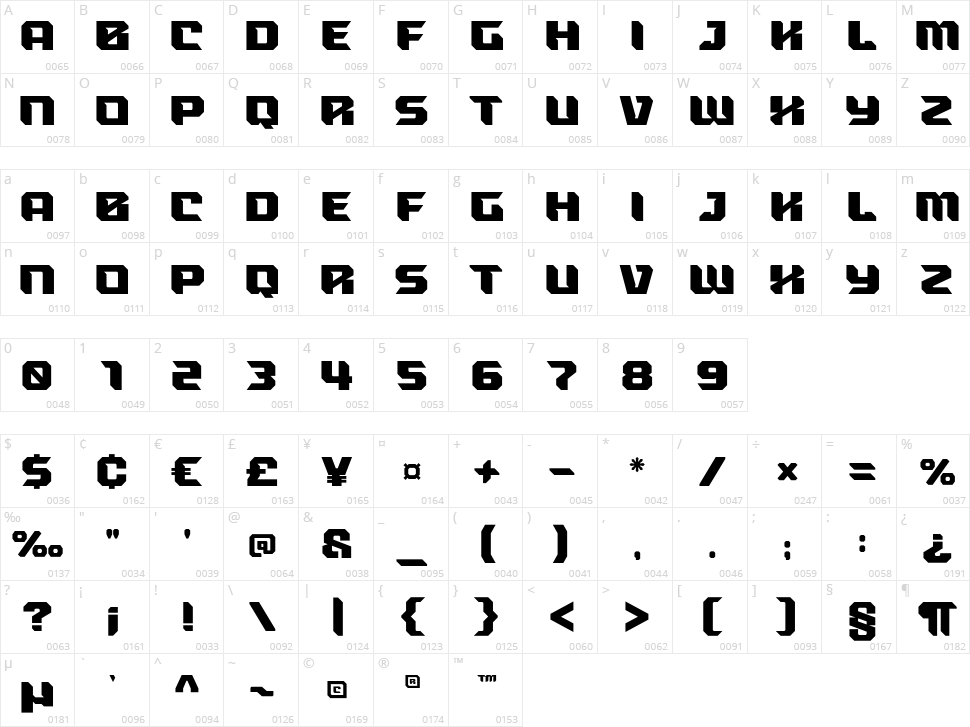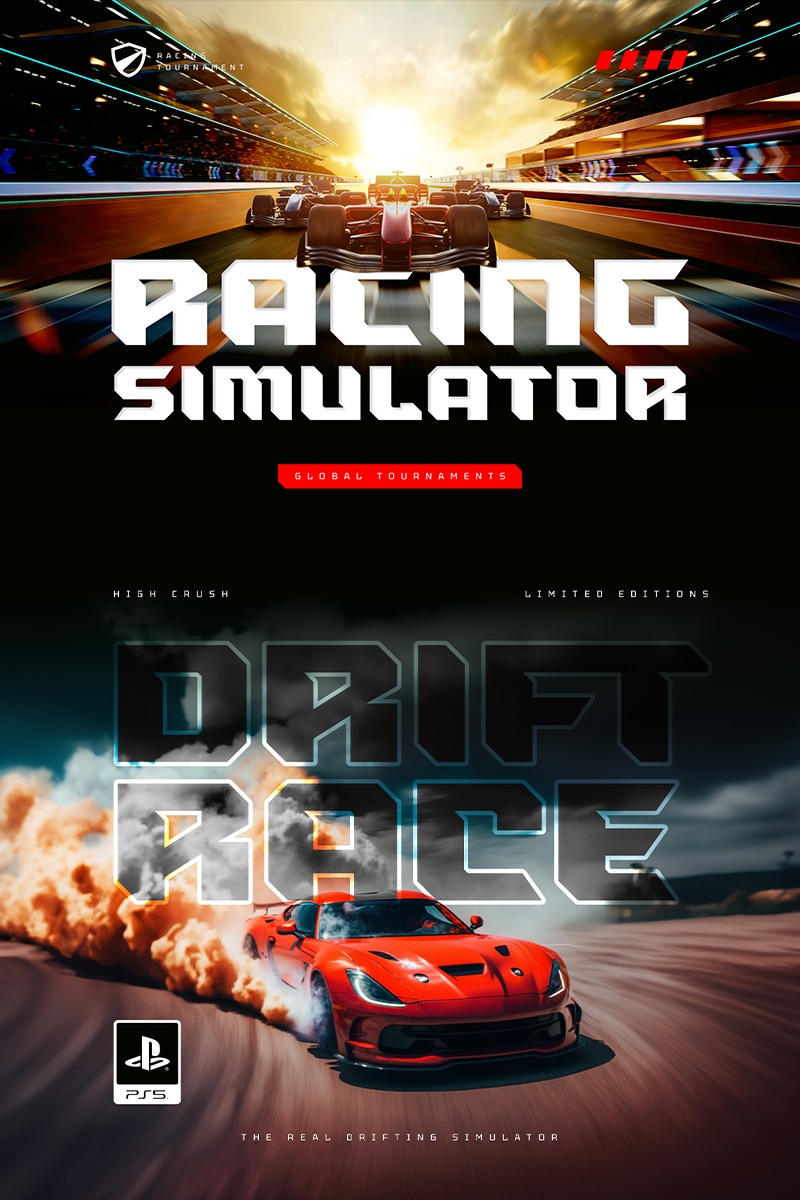
High Crush
A visual reflection of progress and dynamism. Elevate your design projects to the next level with our cutting-edge Bold Techno Sport Display Fonts.